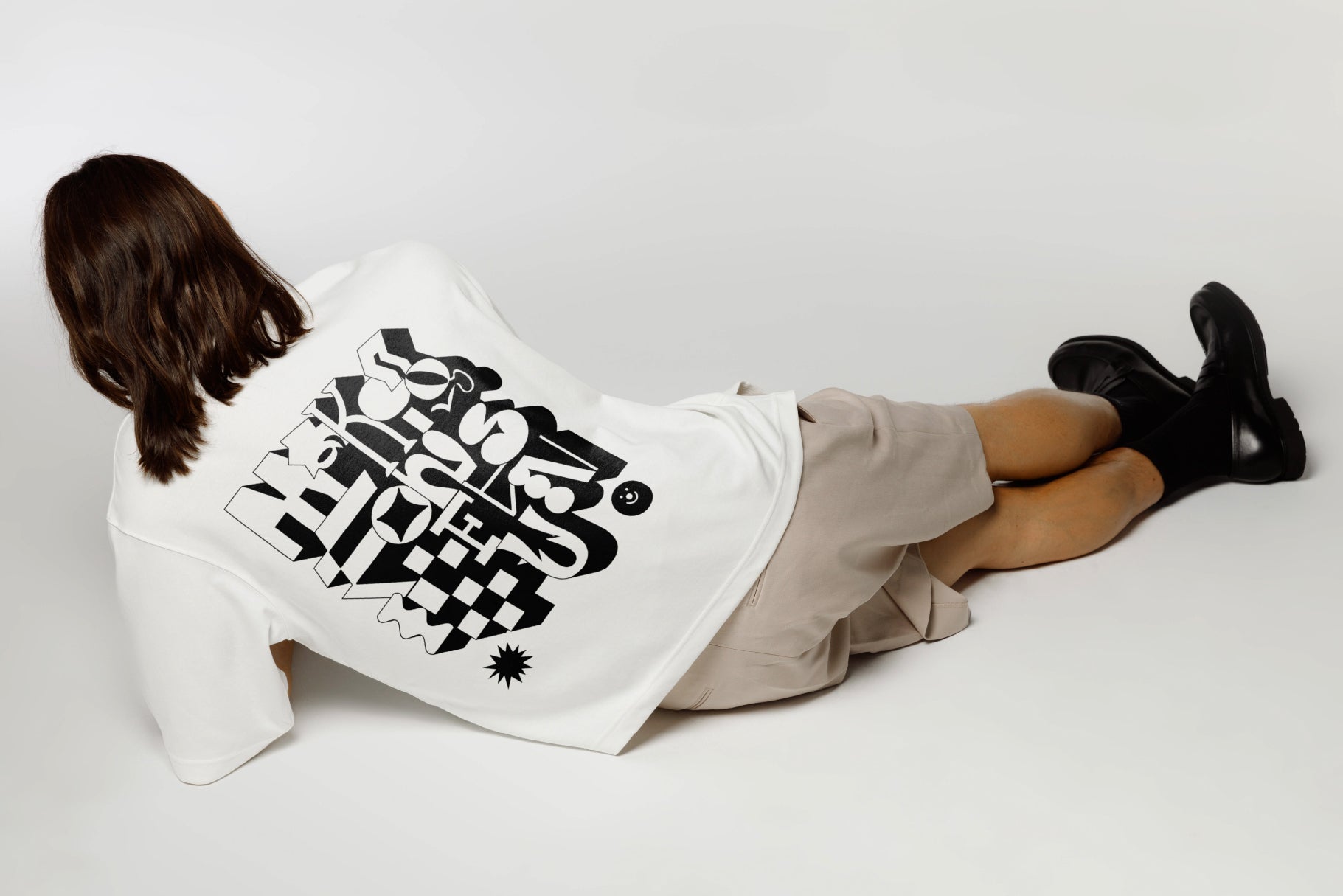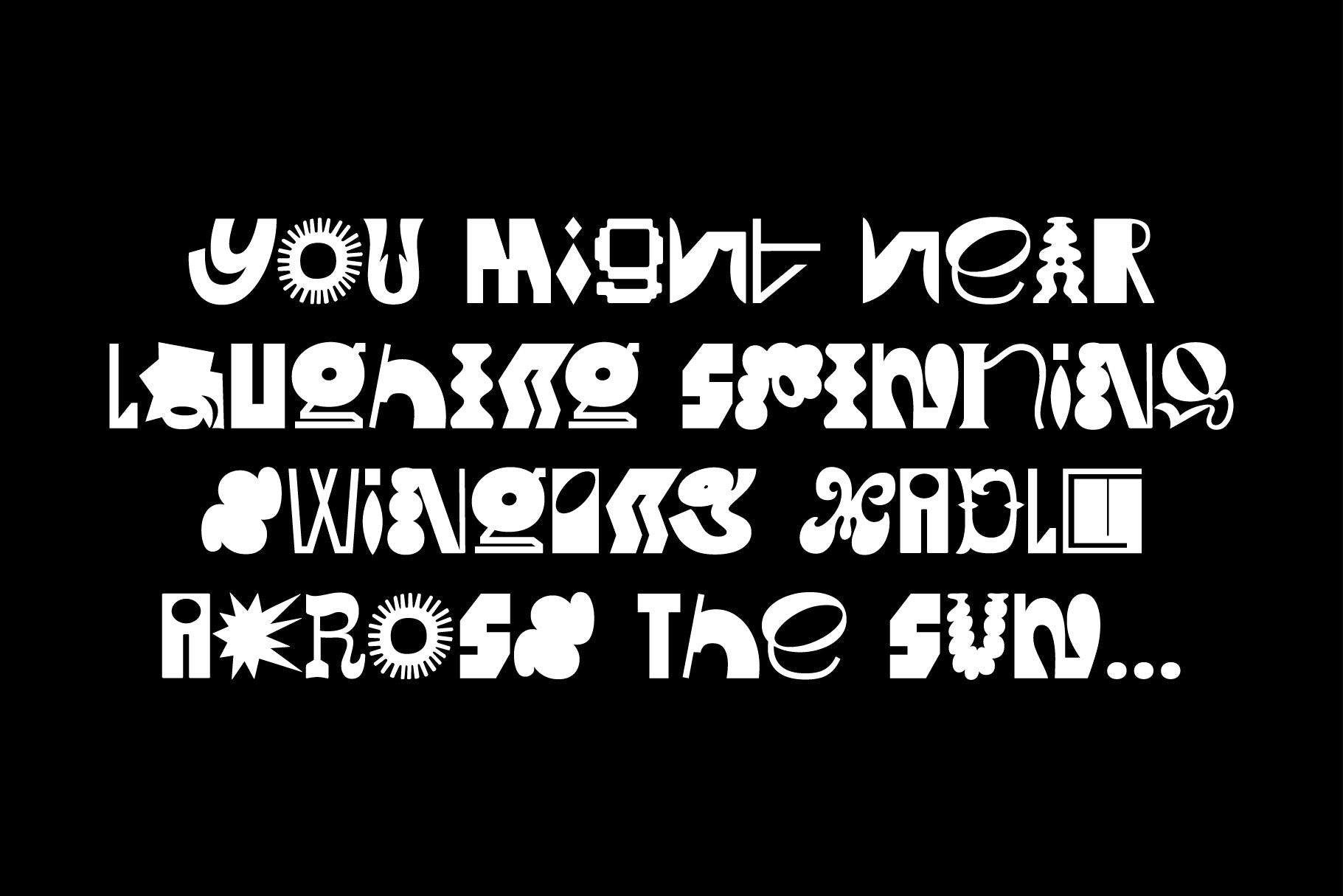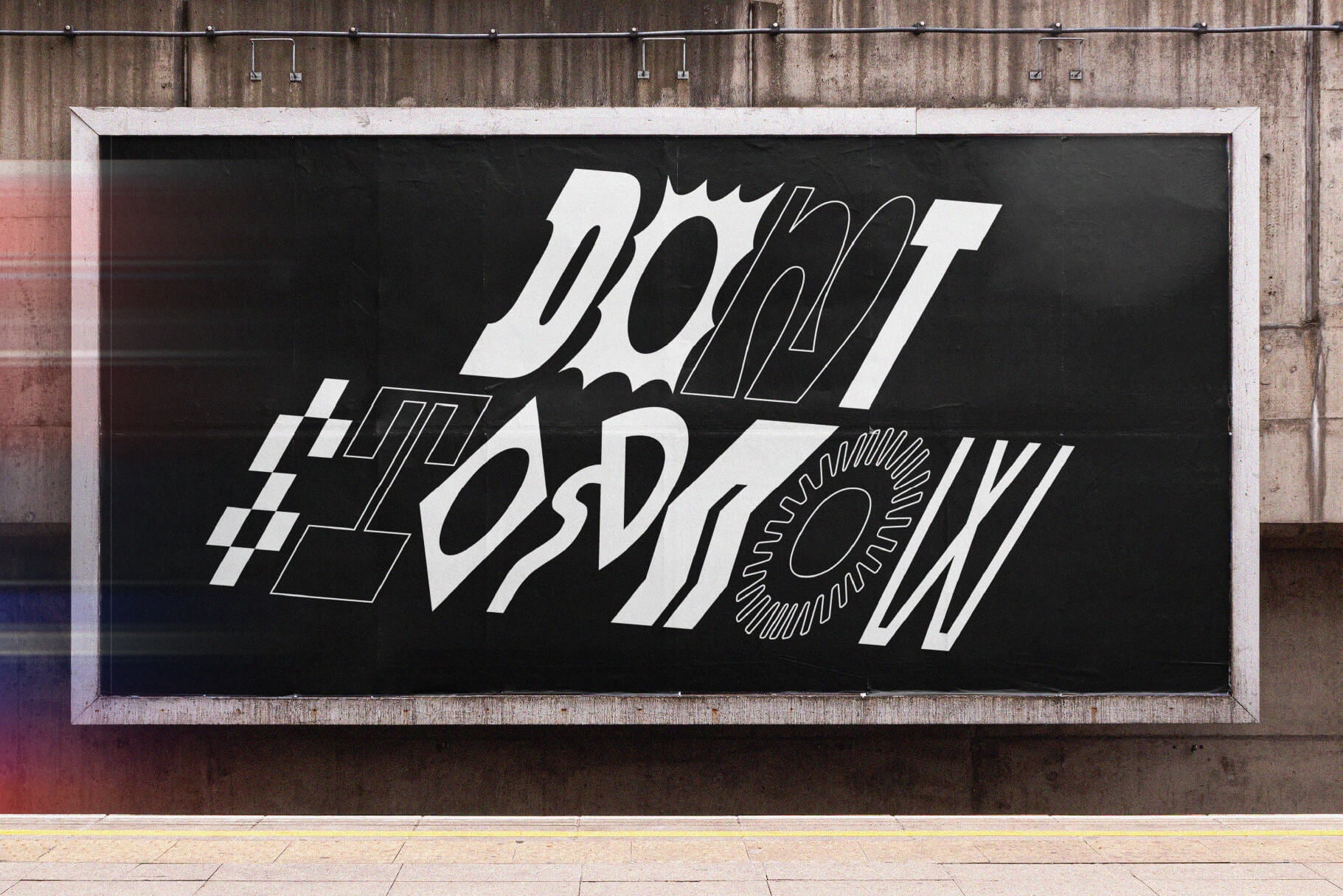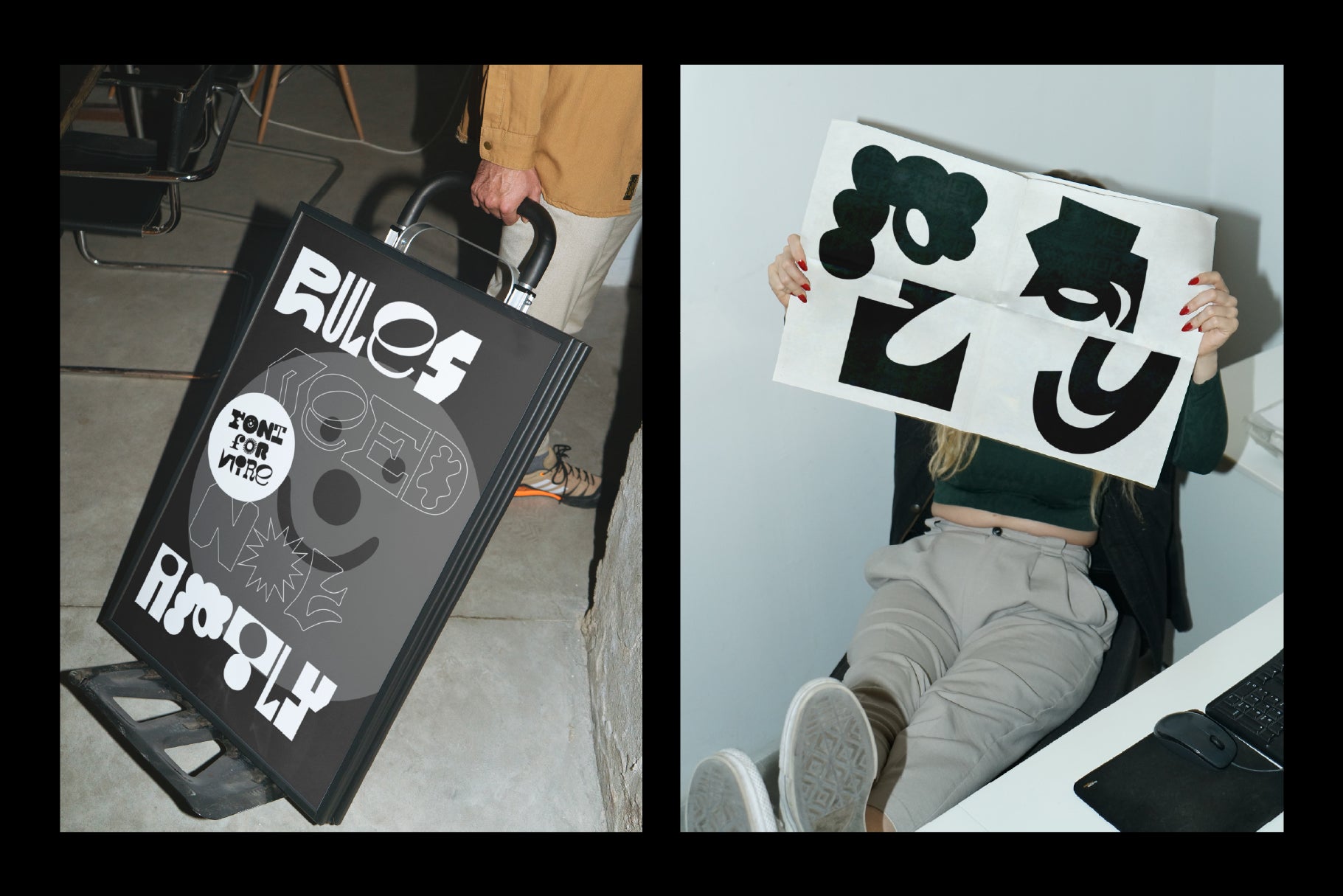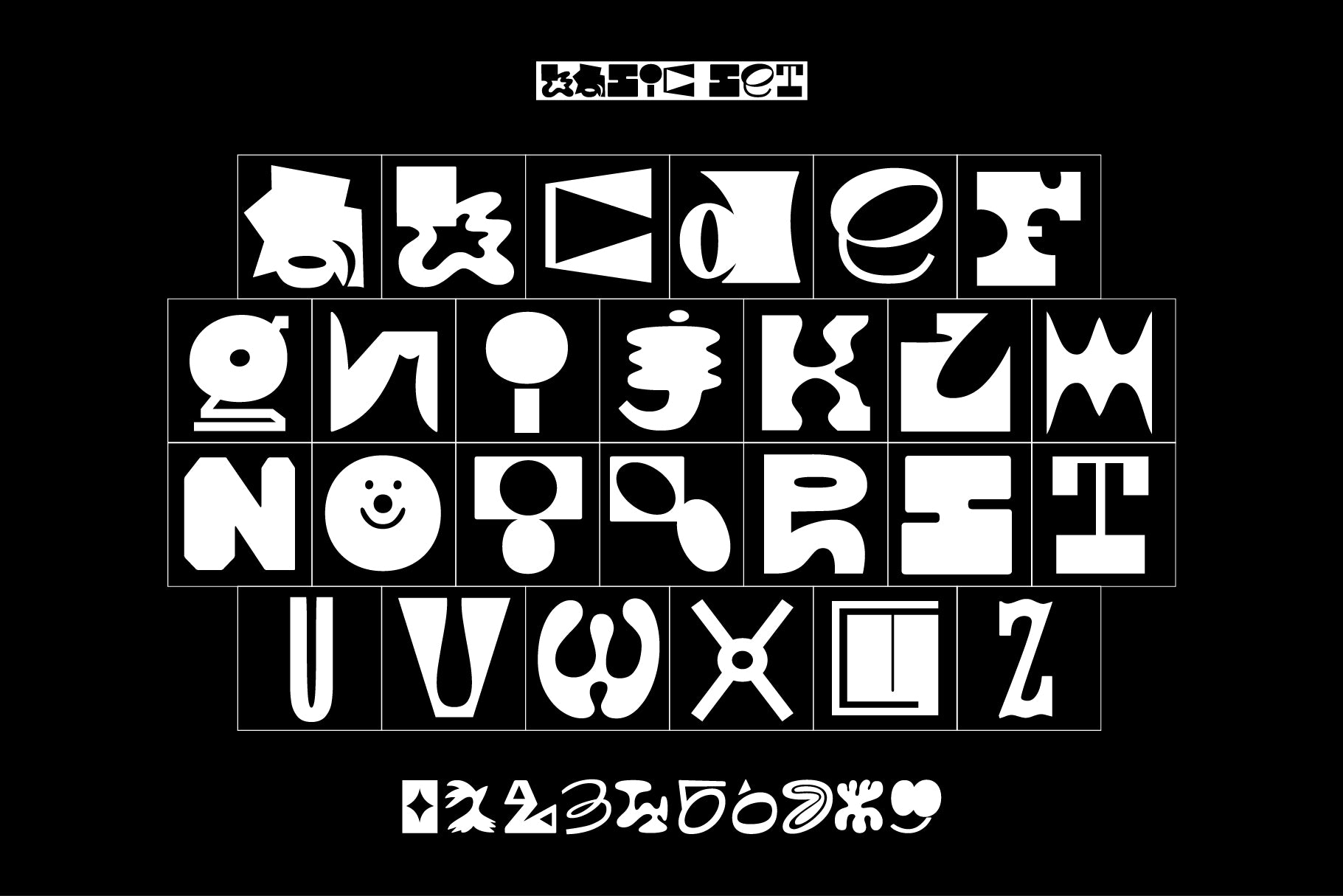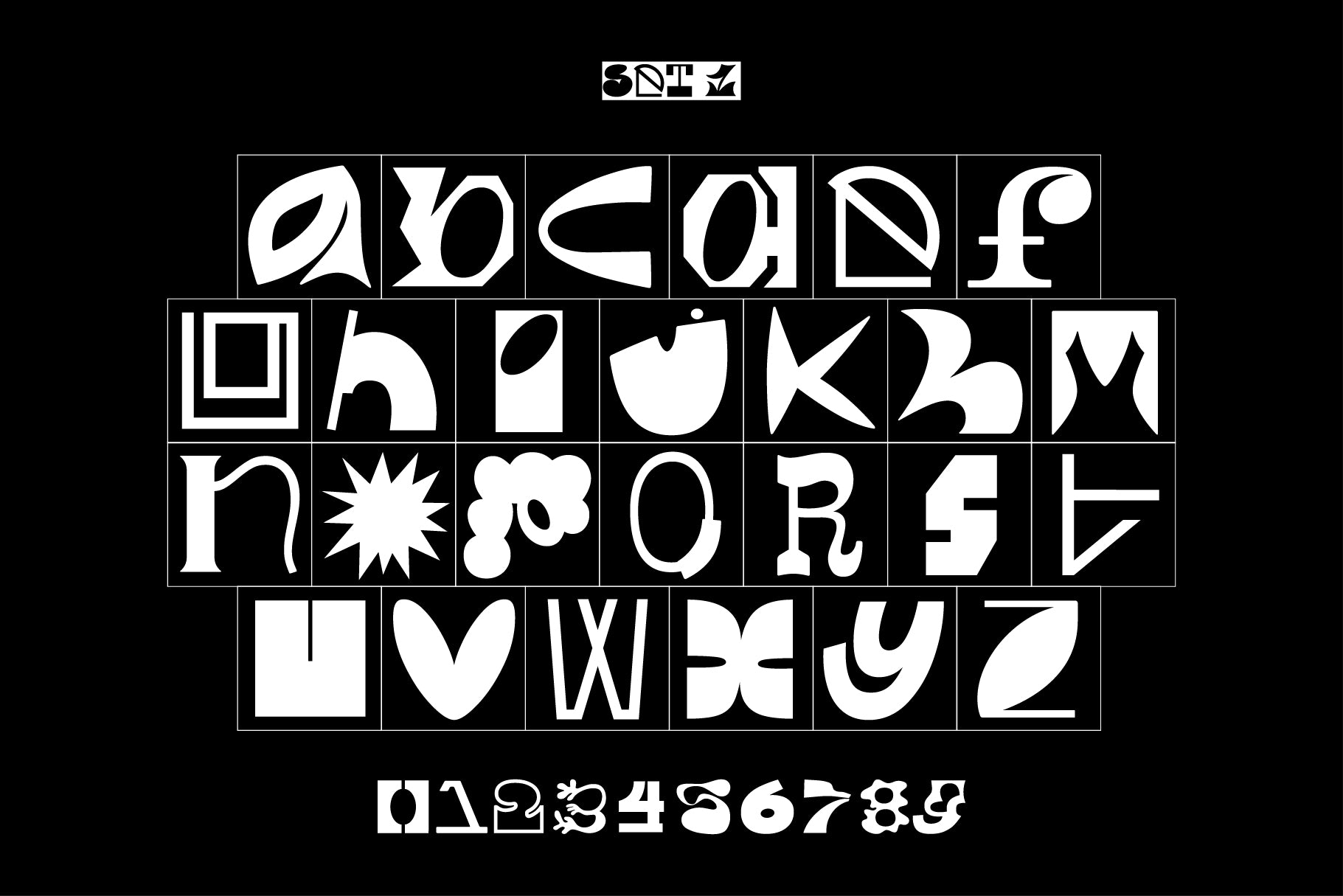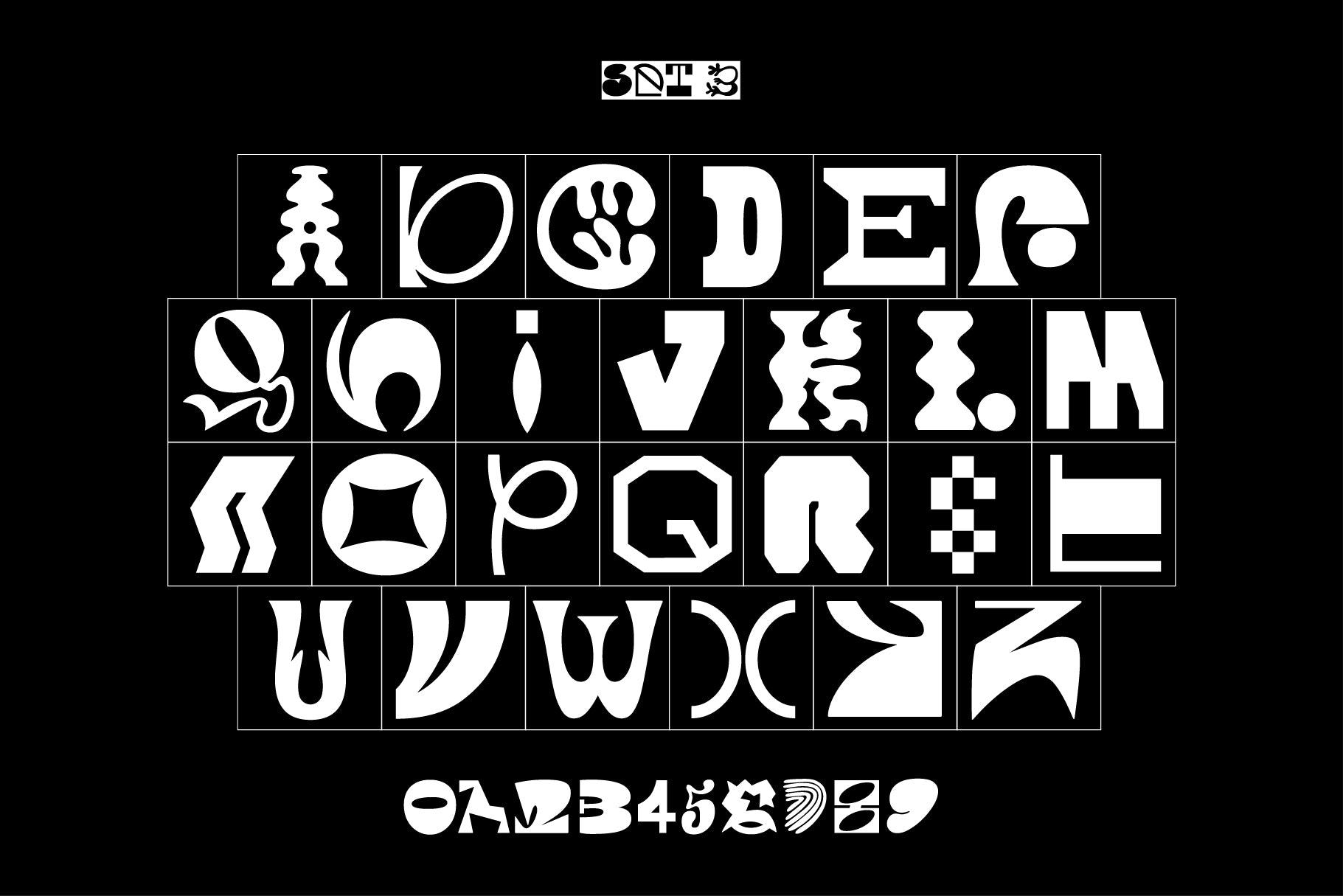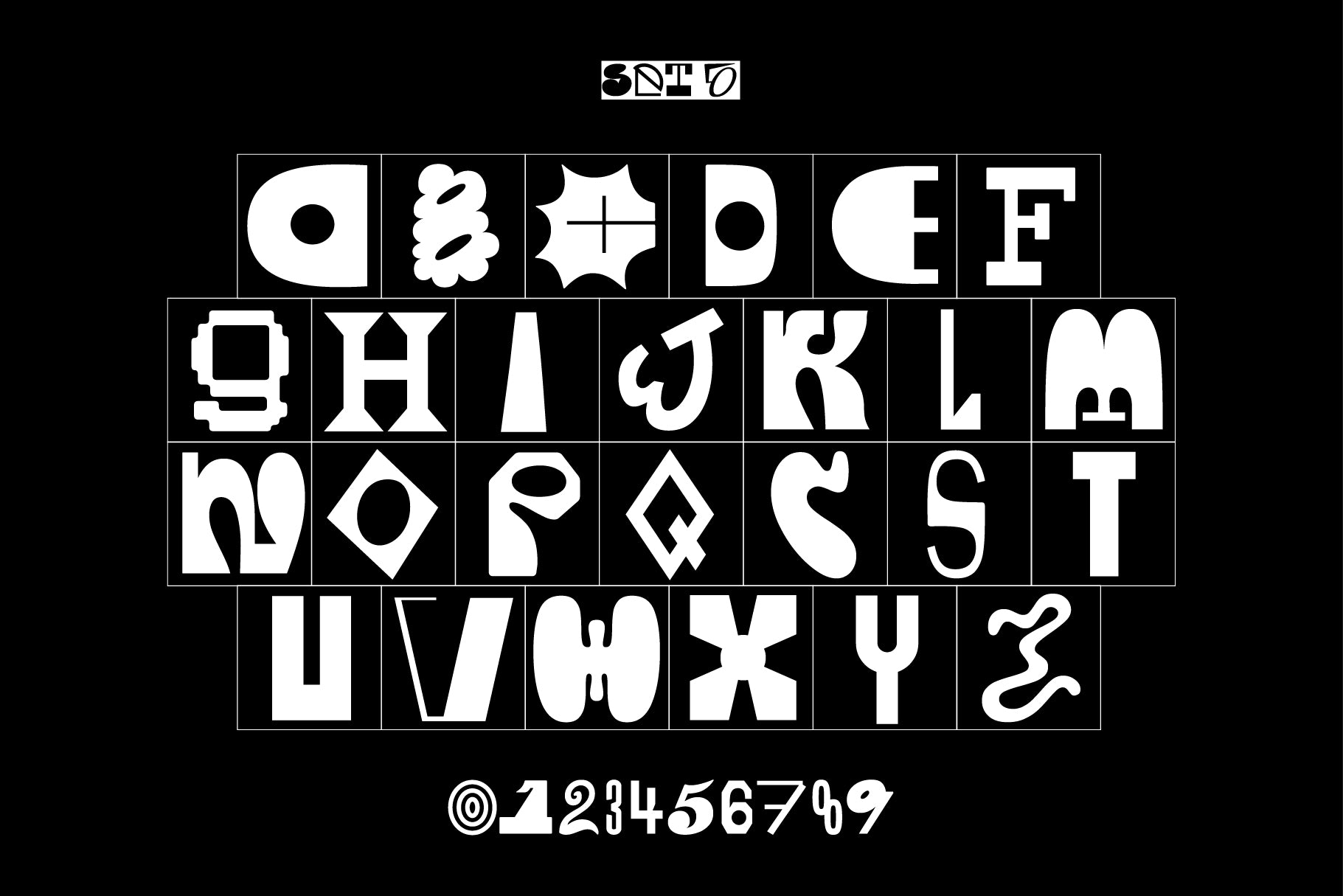
Allsorts - Quirky Display Font
Allsorts is a super playful, super fun, super bold, modern display font. Perfect if you are looking for something a lil' quirky for a logo design or branding project, for instagram, a headline font for a magazine, or whatever takes your fancy.
Code has been added to the font so that it randomises a lil' as you type (with contextual alternates activated). For example, if you typed out 6 'A's' they would all be different. There are five stylistic sets, so there are loads of possibilities to use Allsorts in your own way!
• Caps
• Numbers
• Basic Punctuation
• Five stylistic sets
Allsorts is a bold and playful display font featuring caps, numbers, basic punctuation, and five stylistic sets for versatile design options. It includes a randomization feature that alters repeated characters for a unique appearance with each use, available in TTF and OTF formats.